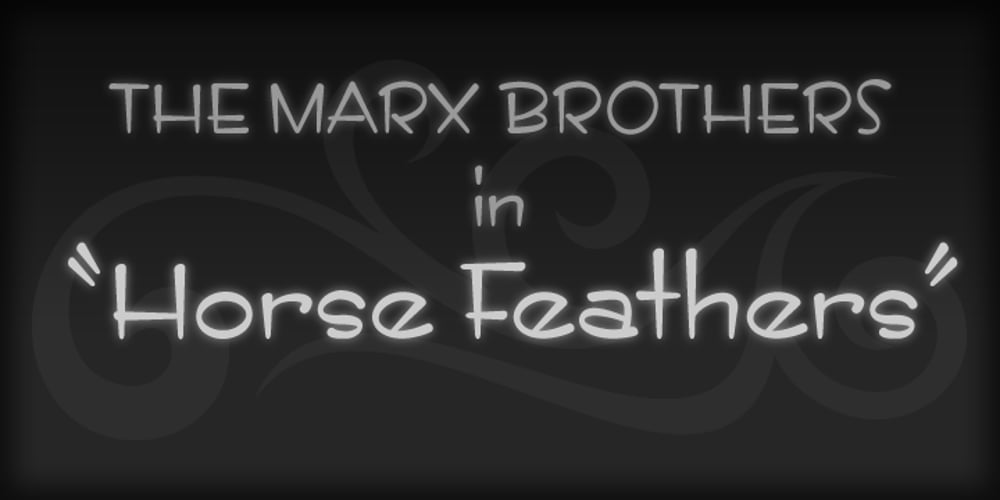
ITC Styleboy Font Family was designed by Chester Wajda and published by ITC. ITC Styleboy contains 1 styles and family package options. Although ITC Styleboy has a retro feel, it isn’t based on any earlier typeface. As far as inspiration goes,” says designer Chester Wajda, “I’d have to say comic strips of the ’20s and ’30s, and silent-film marquee lettering from the ’20s – with a hint of a Chinese brush?” He originally created the typeface for a children’s book he was working on. “I wanted it to be fun, but still somewhat formal in its underlying structure,” he says. “It’s largely based on right and 45-degree angles, with slight tucks inward on the stems and bowls, and a few flourishes here and there.” Styleboy’s top-heavy look is most noticeable in the caps, but it’s exaggerated too in the “8” and the lowercase “g.” Styleboy is Wajda’s first typeface design.”